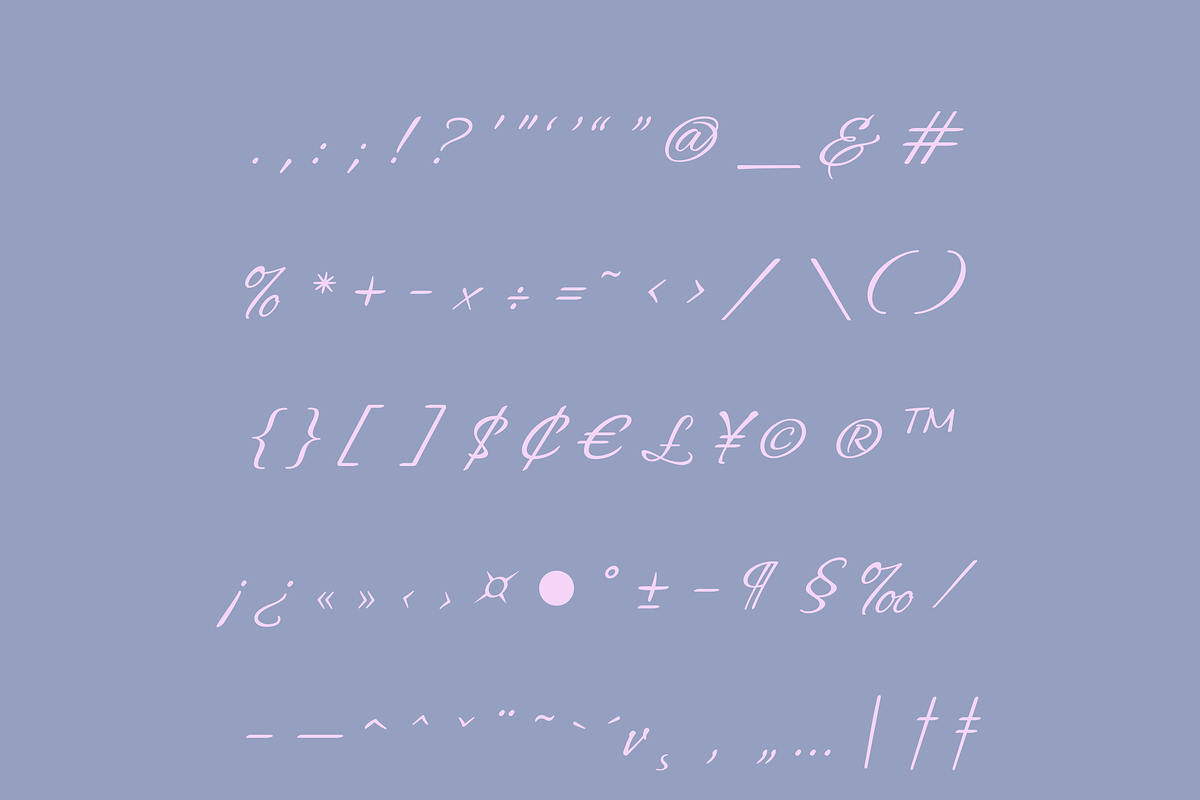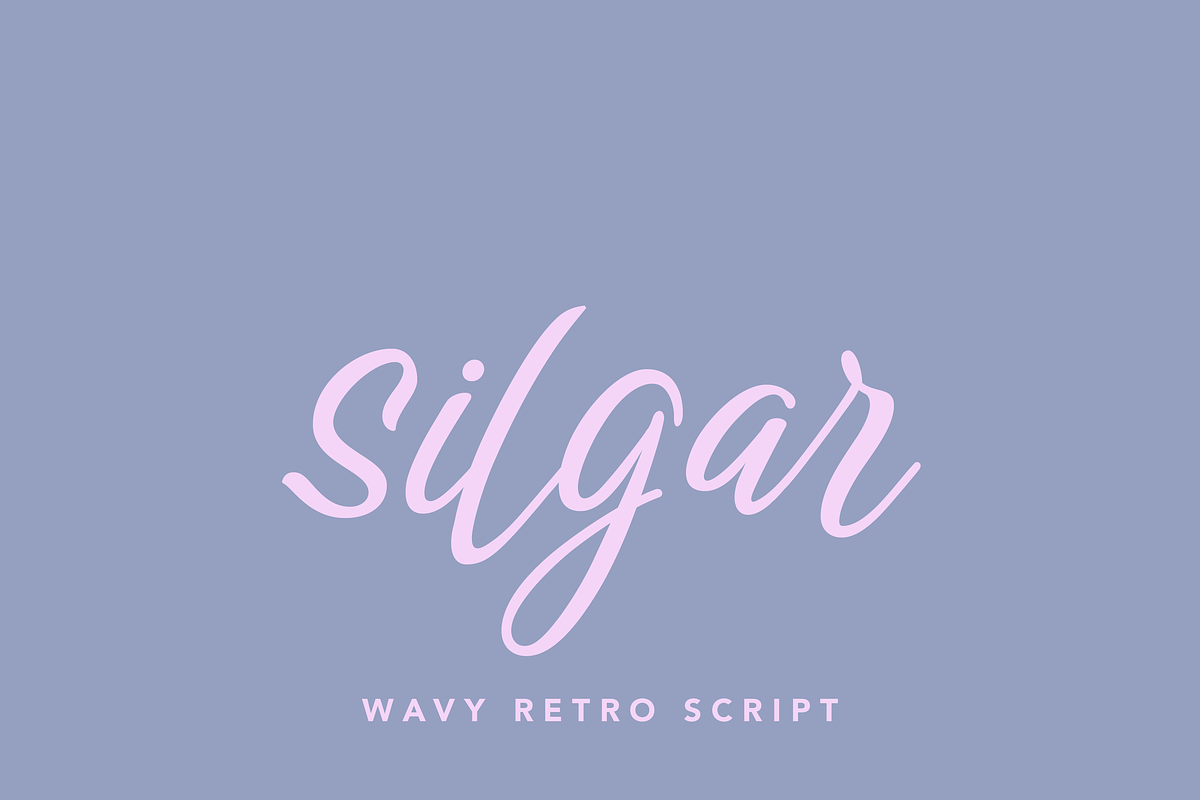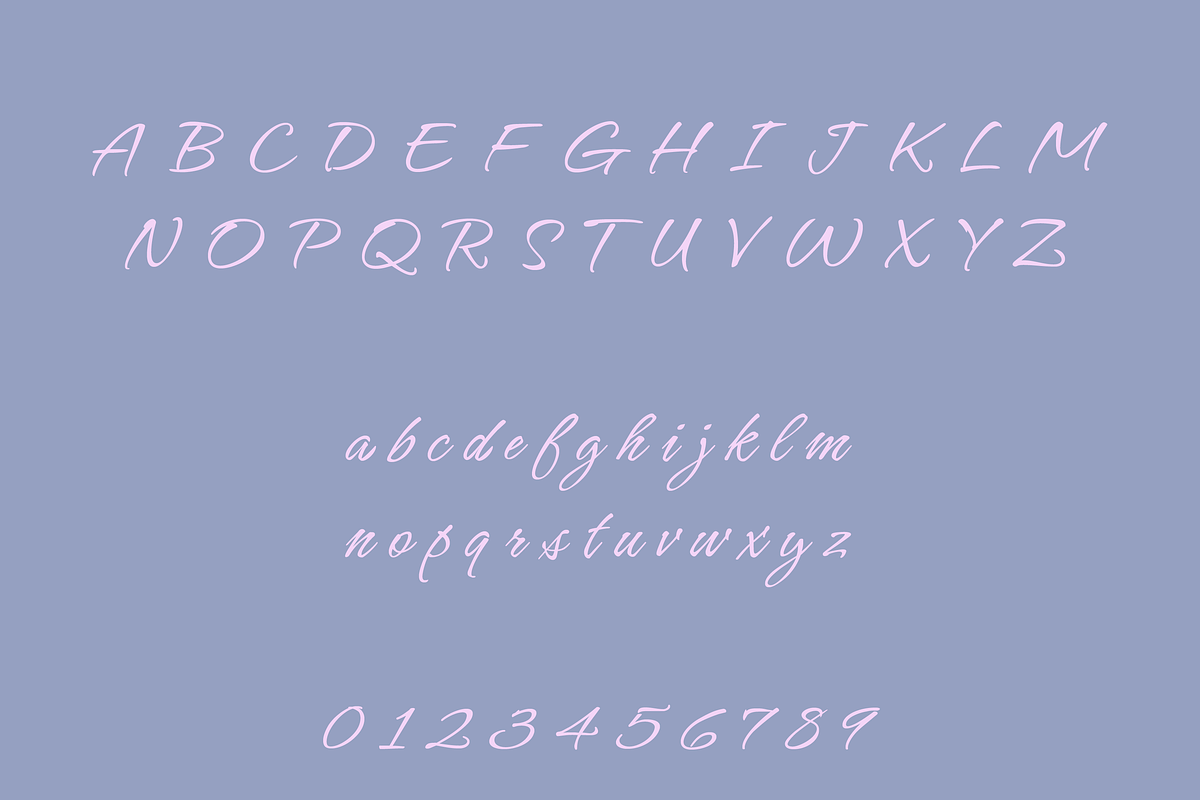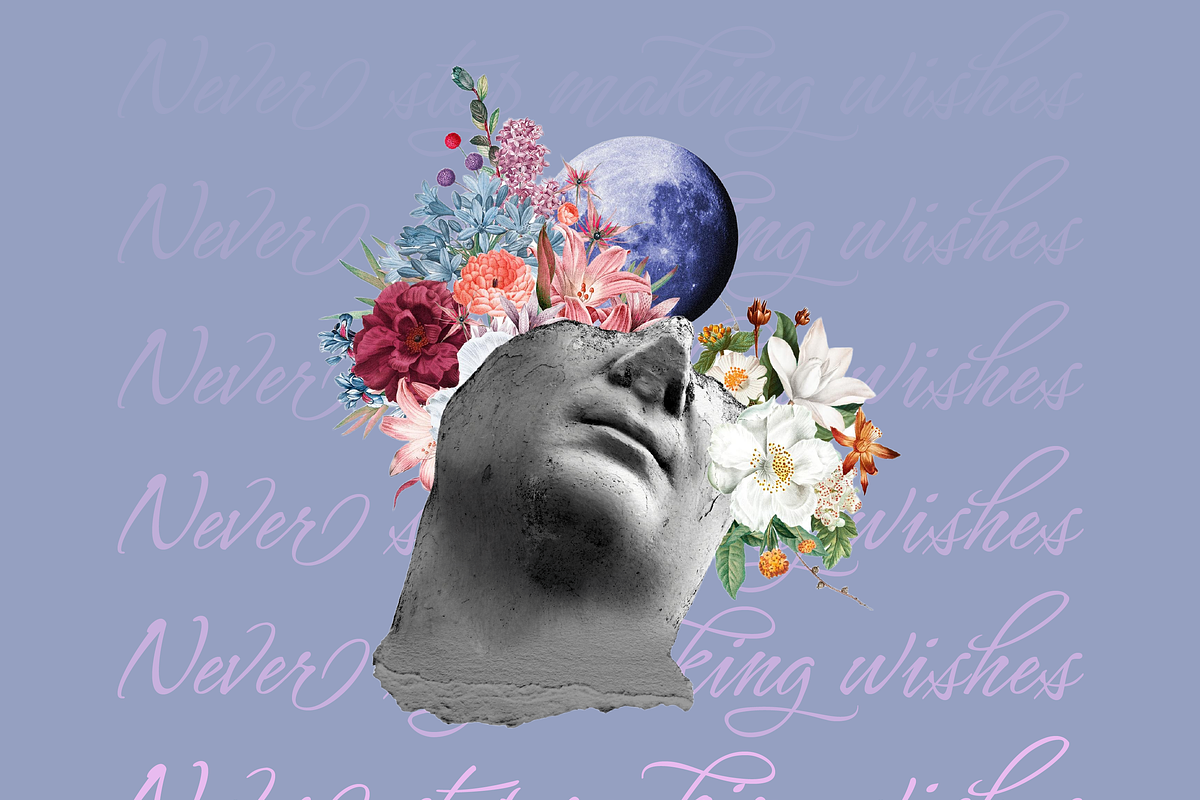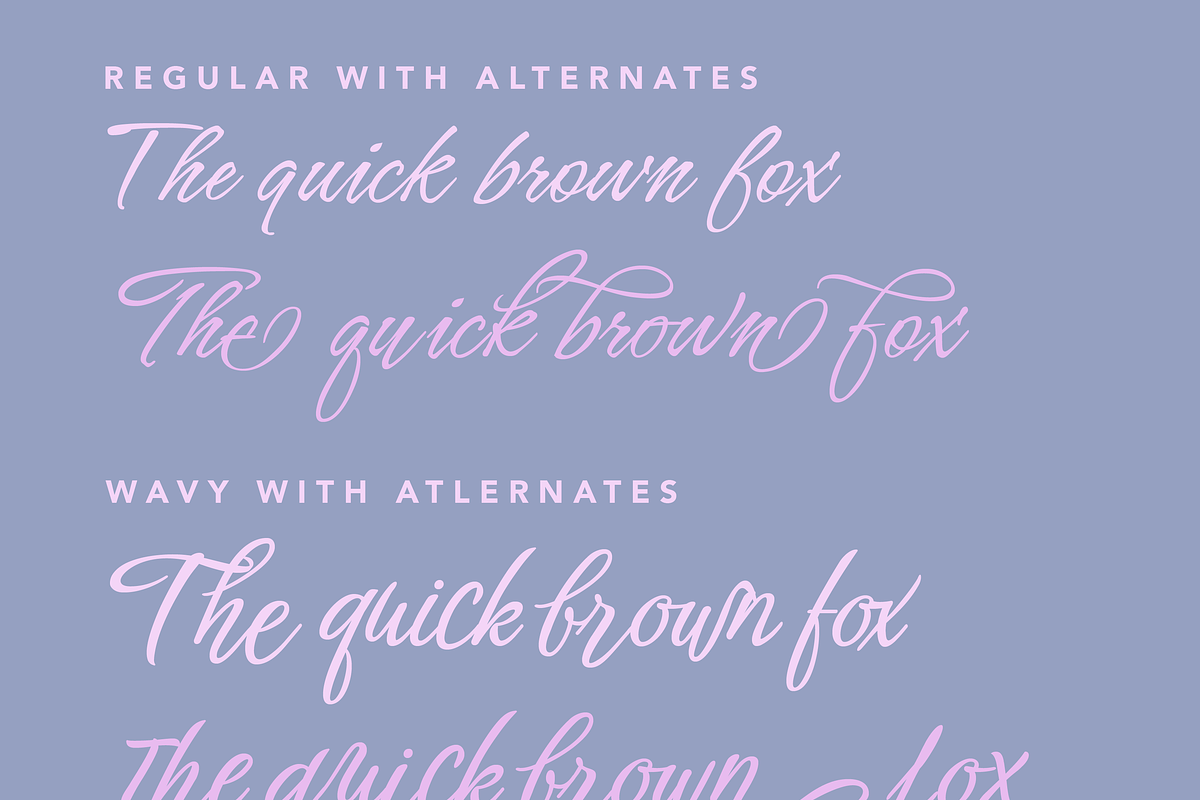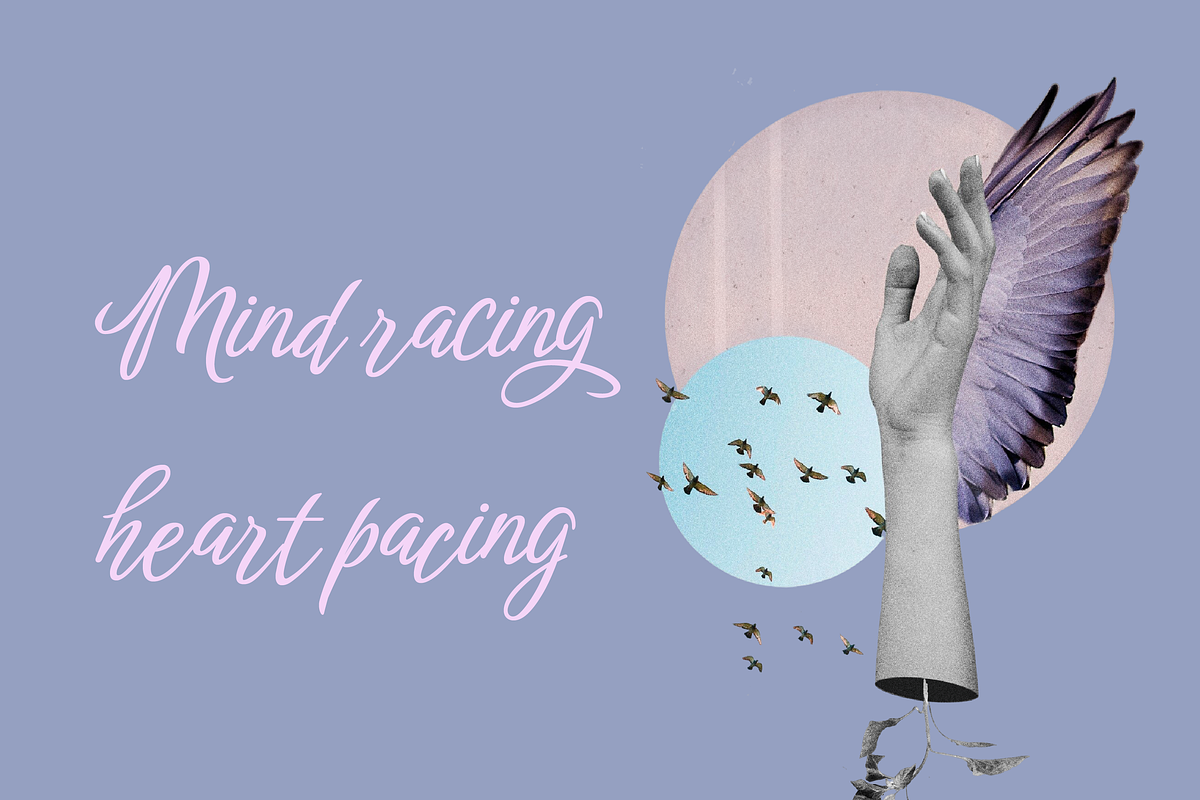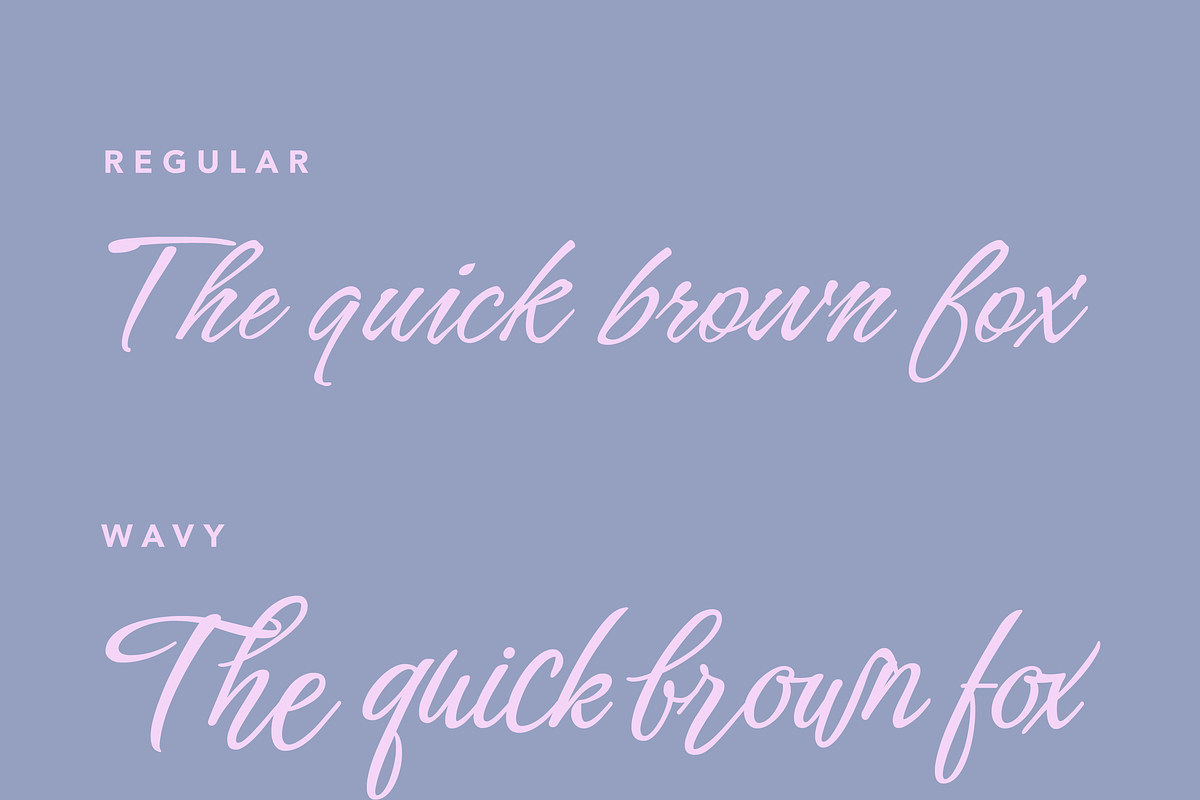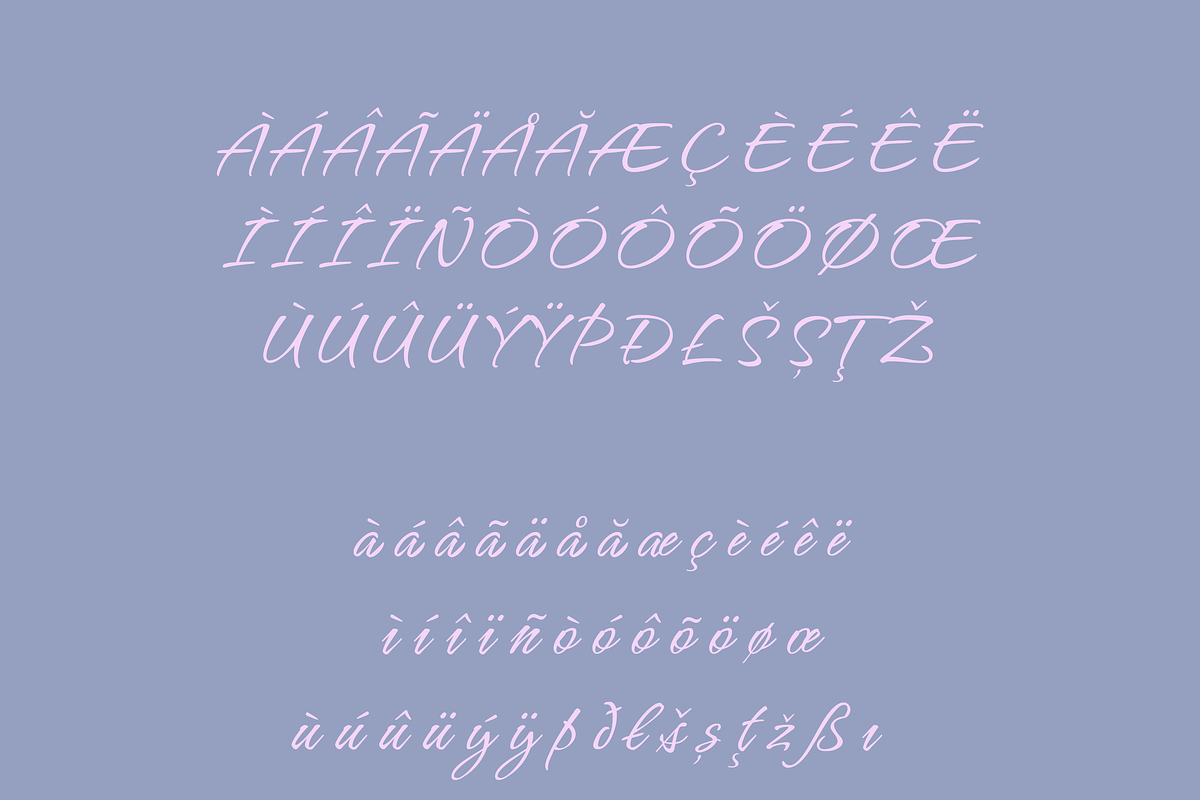
Silgar Vintage Script
Silgar Font – A Spirited and Energetic Brush Script
Silgar is a lively, fast-moving brush script that exudes flair and excitement. Perfect for adding energy and personality to your designs, it brings a dynamic touch to any project. The Script stylistic set swaps out the standard uppercase letters for more flourished, decorative forms, enhancing the font’s expressiveness.
Silgar supports Latin character sets, including Western and Central language support, making it ideal for a variety of creative projects. Whether you’re designing logos, posters, invitations, or branding, Silgar adds a bold, spirited vibe to your designs.